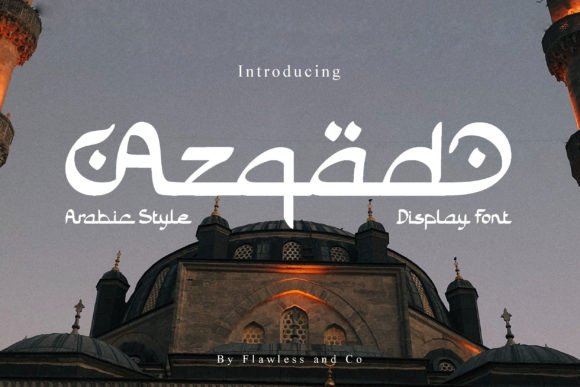
In a realm where digital expression reigns supreme, Azqad emerges from the depths of Flawless And Co's creative forge as a dazzling display font, an embodiment of elegance personified. Inspired by the ancient art of Arabic calligraphy, Azqad is a tapestry of tradition interwoven with threads of modernity. Its sweeping curves and meticulously crafted details evoke a sense of timeless beauty, lending an air of sophistication and cultural richness to any digital canvas it graces.
Unleash your creative potential and embrace the allure of Azqad, a font that captures the essence of storytelling and transports your designs to a realm of enchantment. Whether you seek to craft captivating logos that resonate, weave mesmerizing social media posts that captivate, or forge unforgettable branding that leaves a lasting impression, Azqad is your ultimate ally in the digital arena.
Immerse yourself in a world where imagination thrives and visual narratives come alive, Azqad becomes your trusted companion. Its versatile nature allows it to seamlessly adapt to a multitude of digital expressions, from sleek and minimal to vibrant and playful. Unleash your creativity and embark on a visual odyssey with Azqad as your guide, transforming your designs into mesmerizing works of digital art.